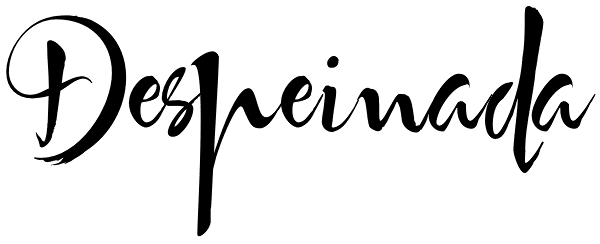
Despeinada
Despeinada, which means "uncombed" in Spanish, is a loose script, perfect for when you want to convey informality. It'll look good in a long text, or when a few rough and spontaneous word are needed... Being a packaging designer, my faces are mostly...